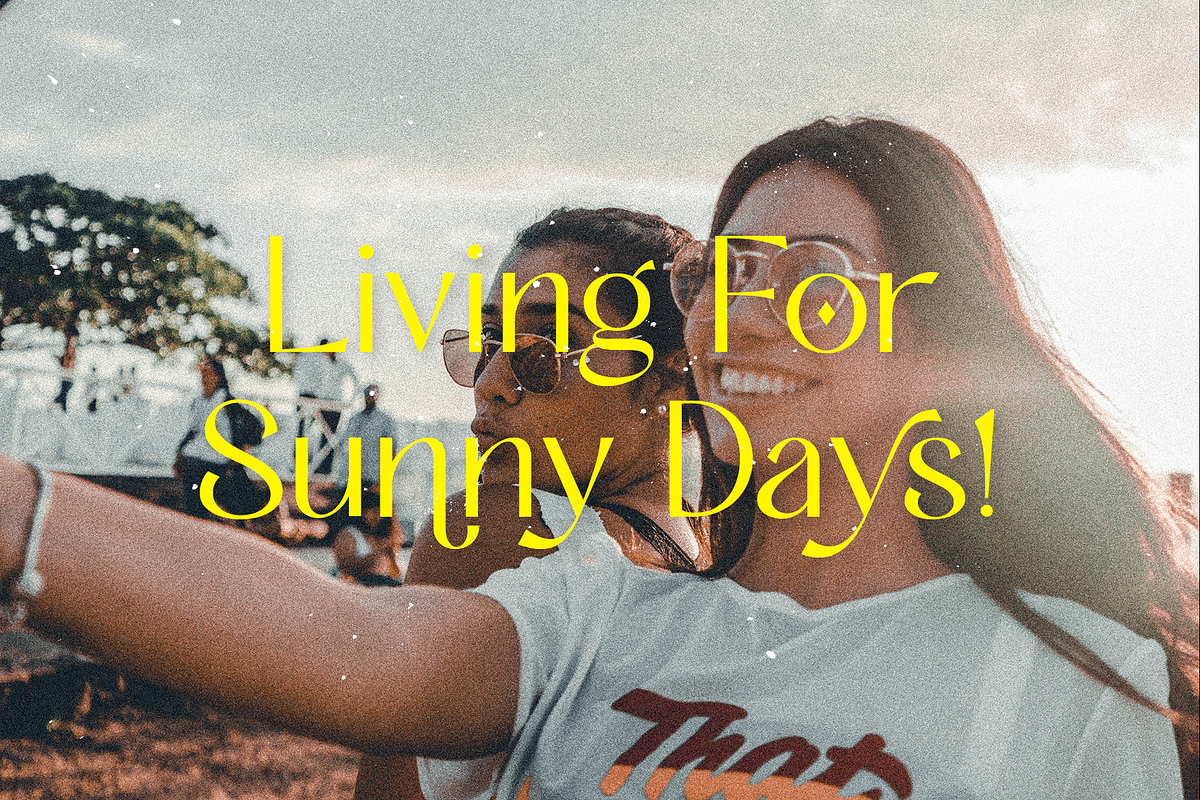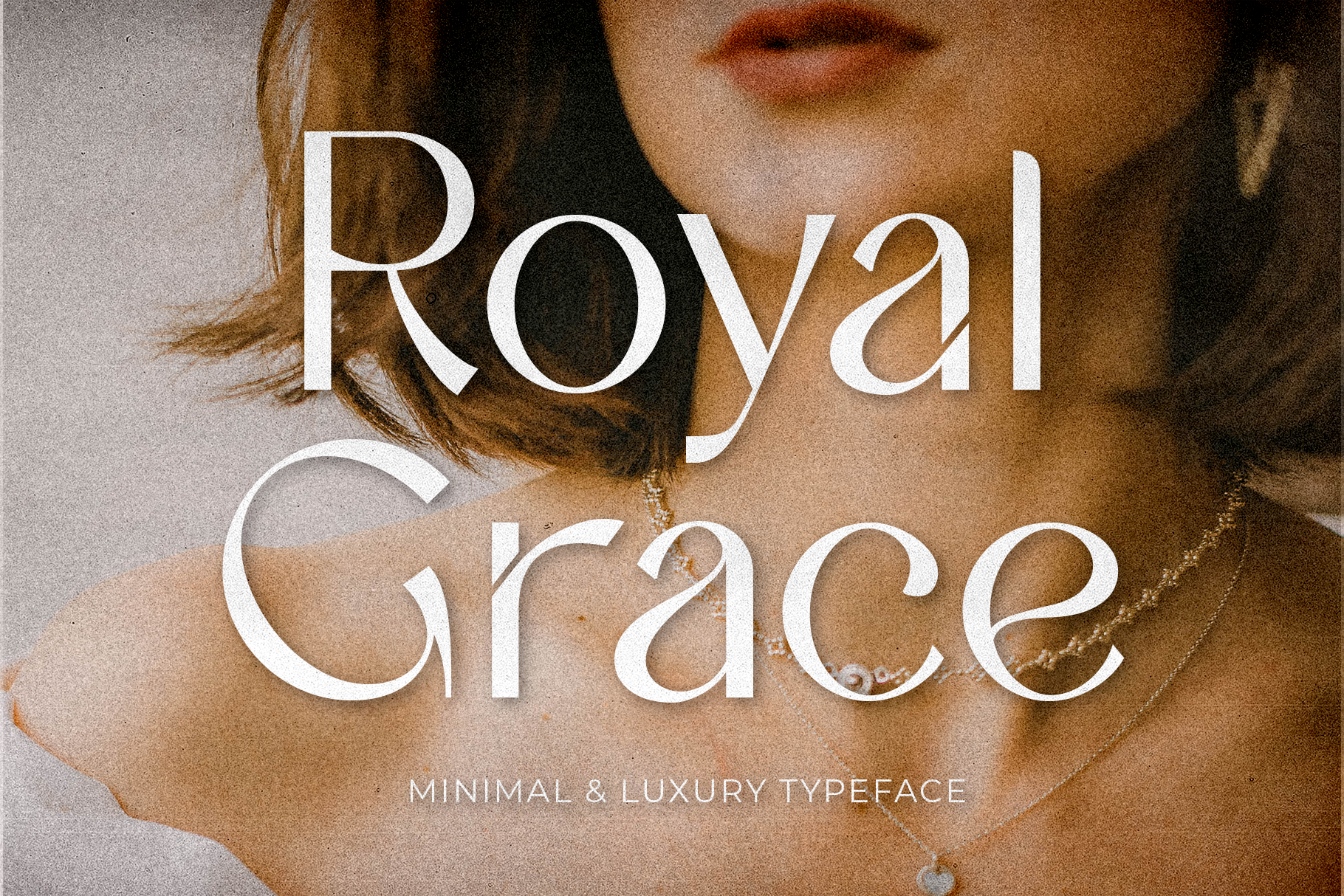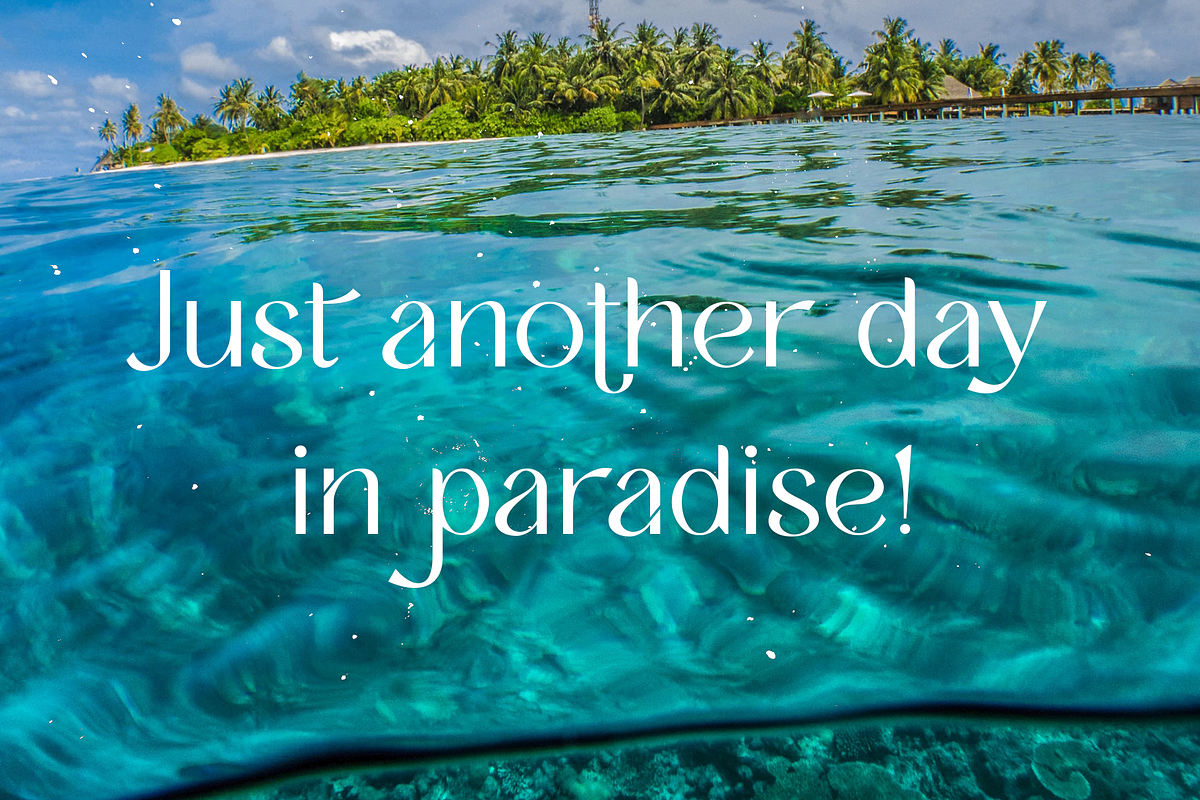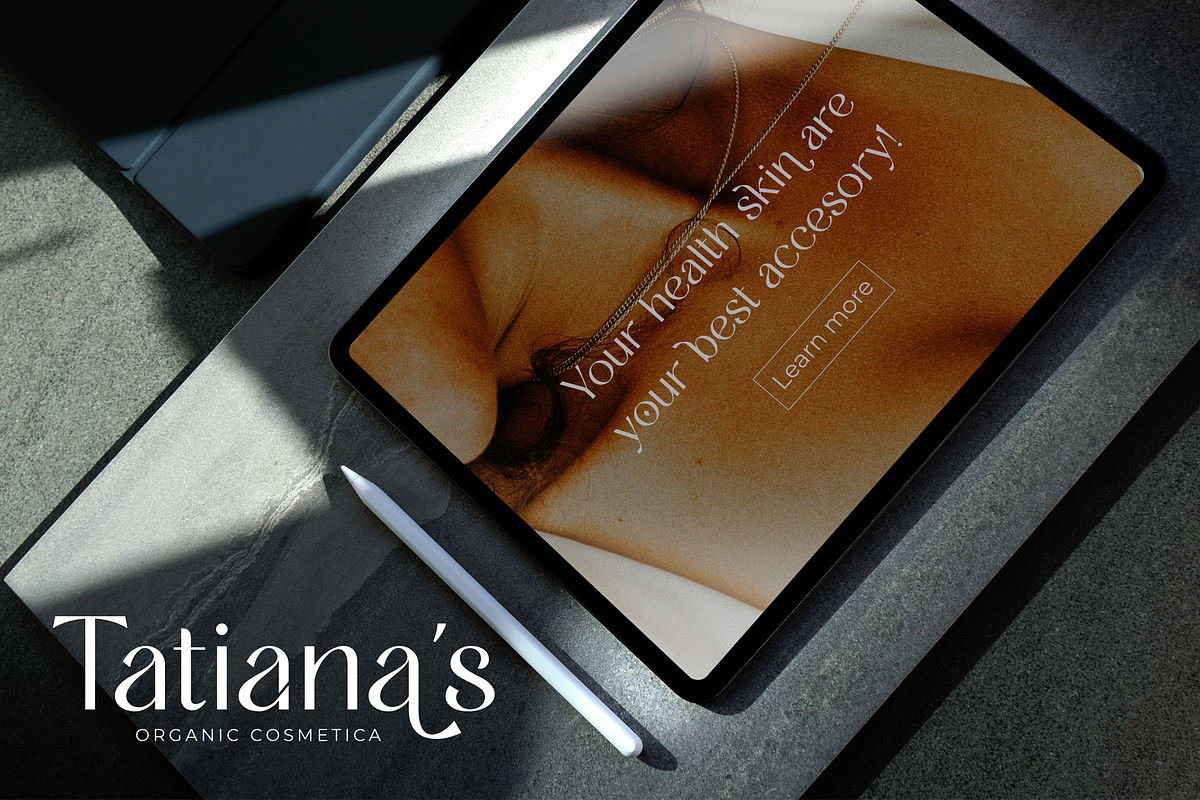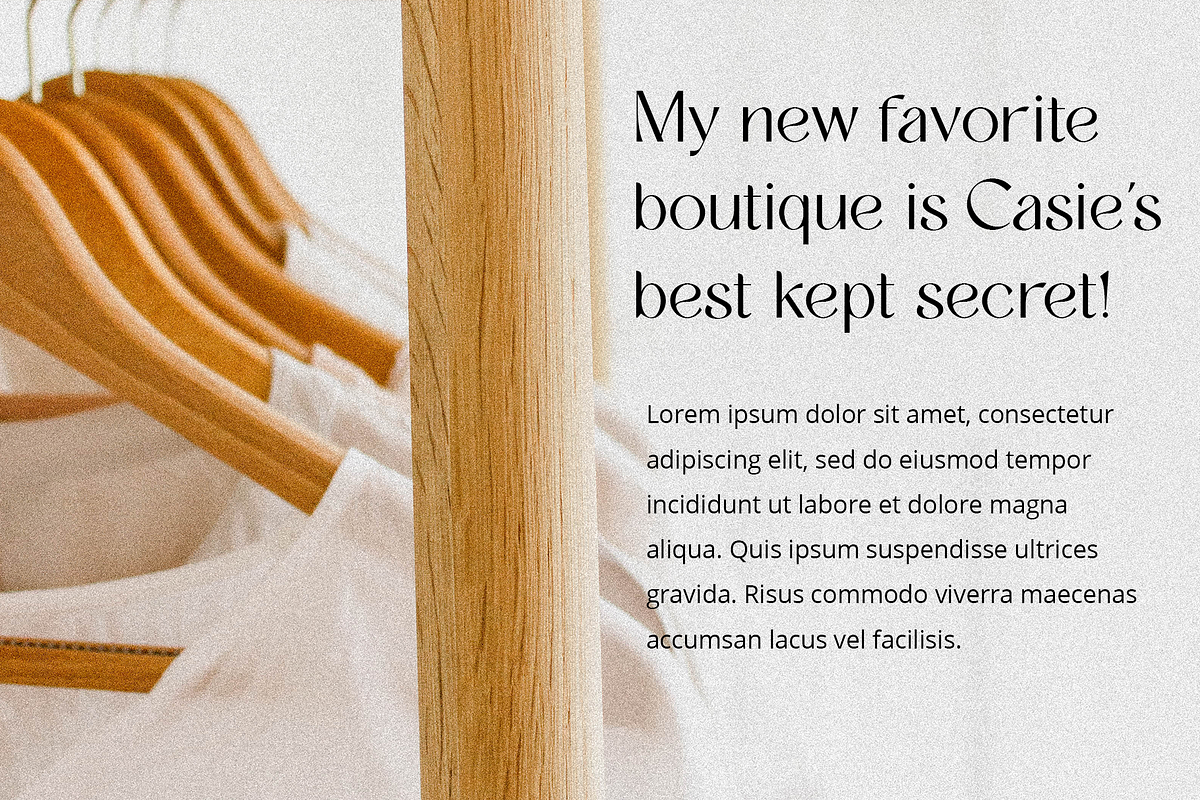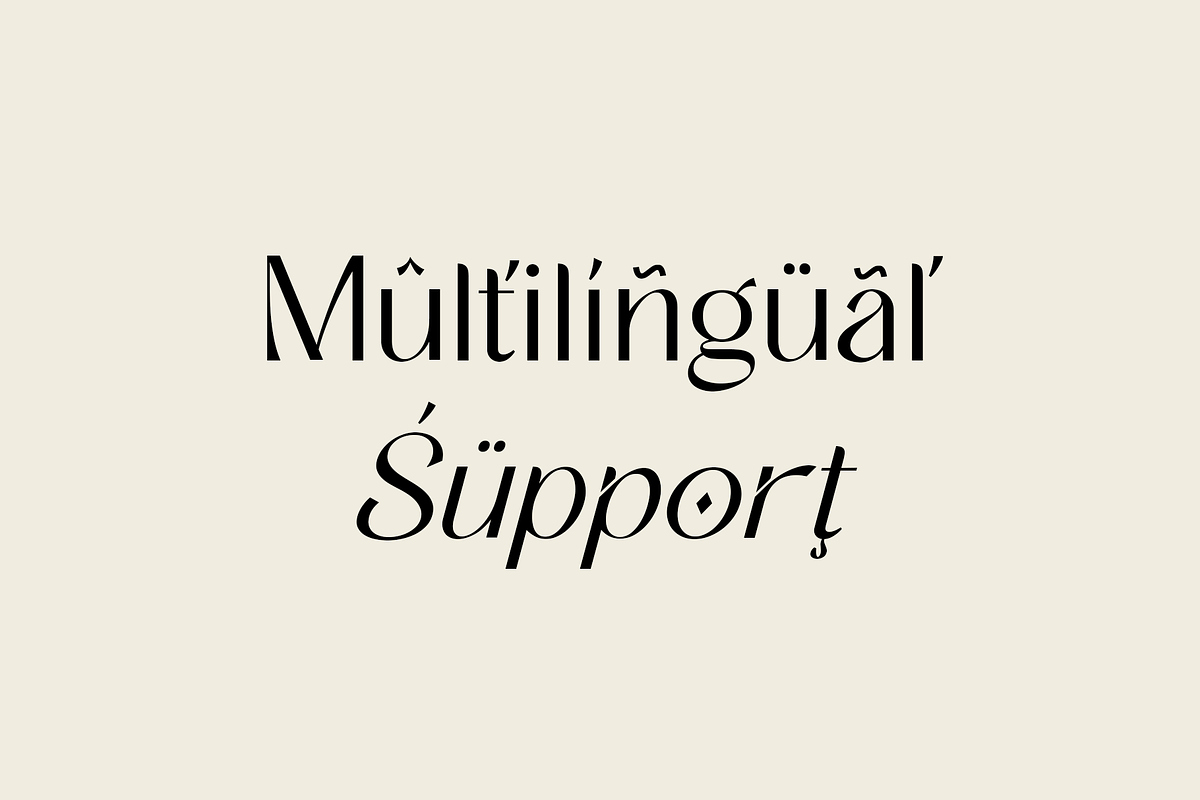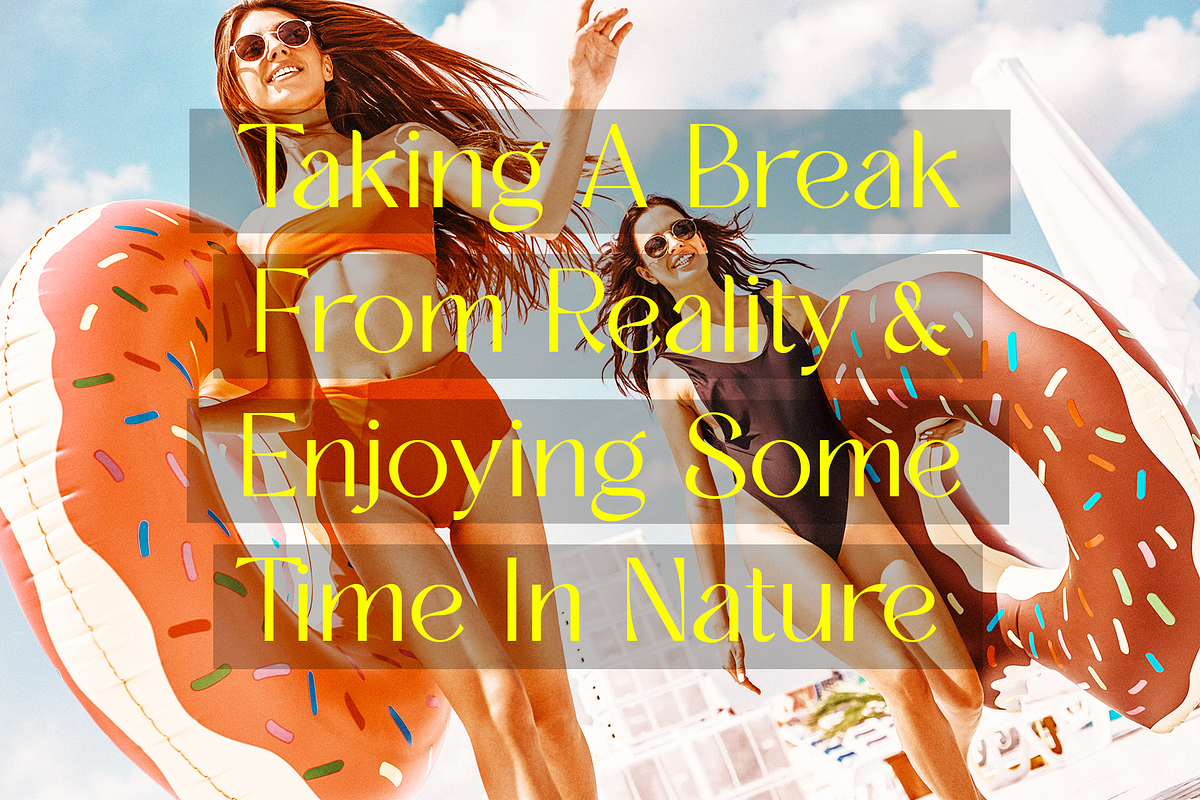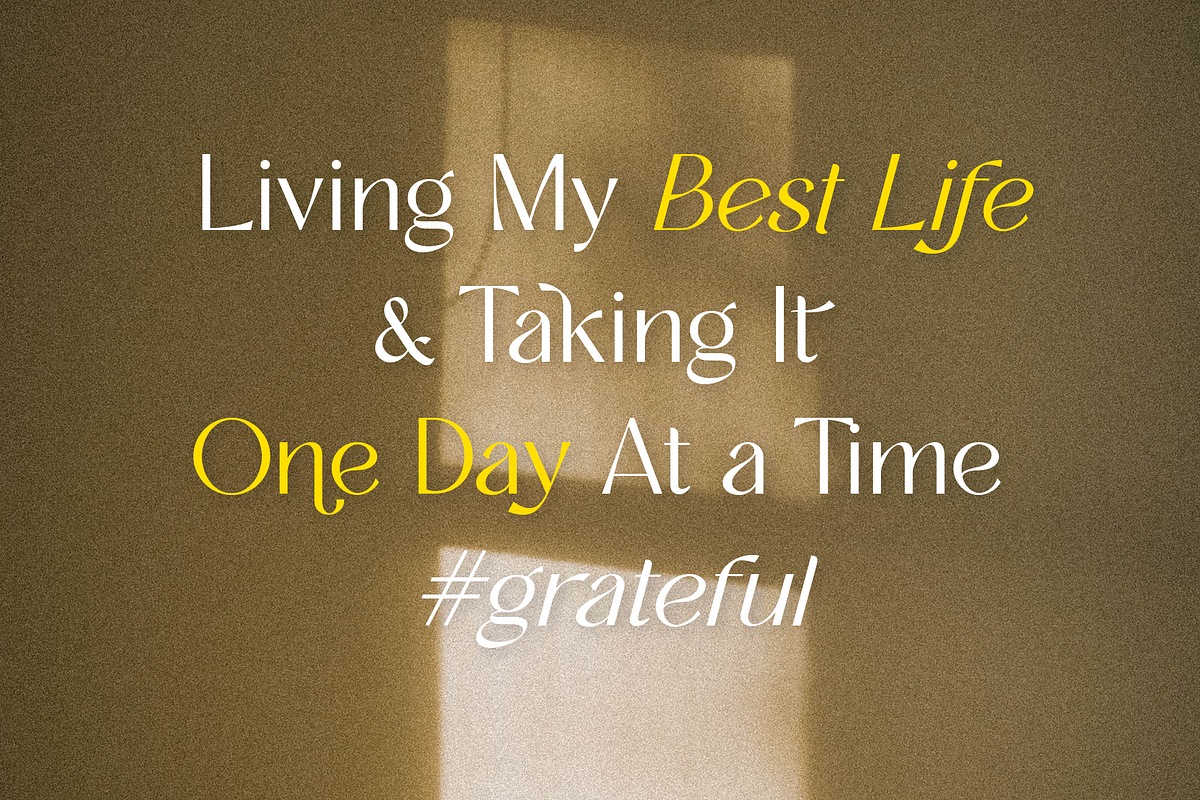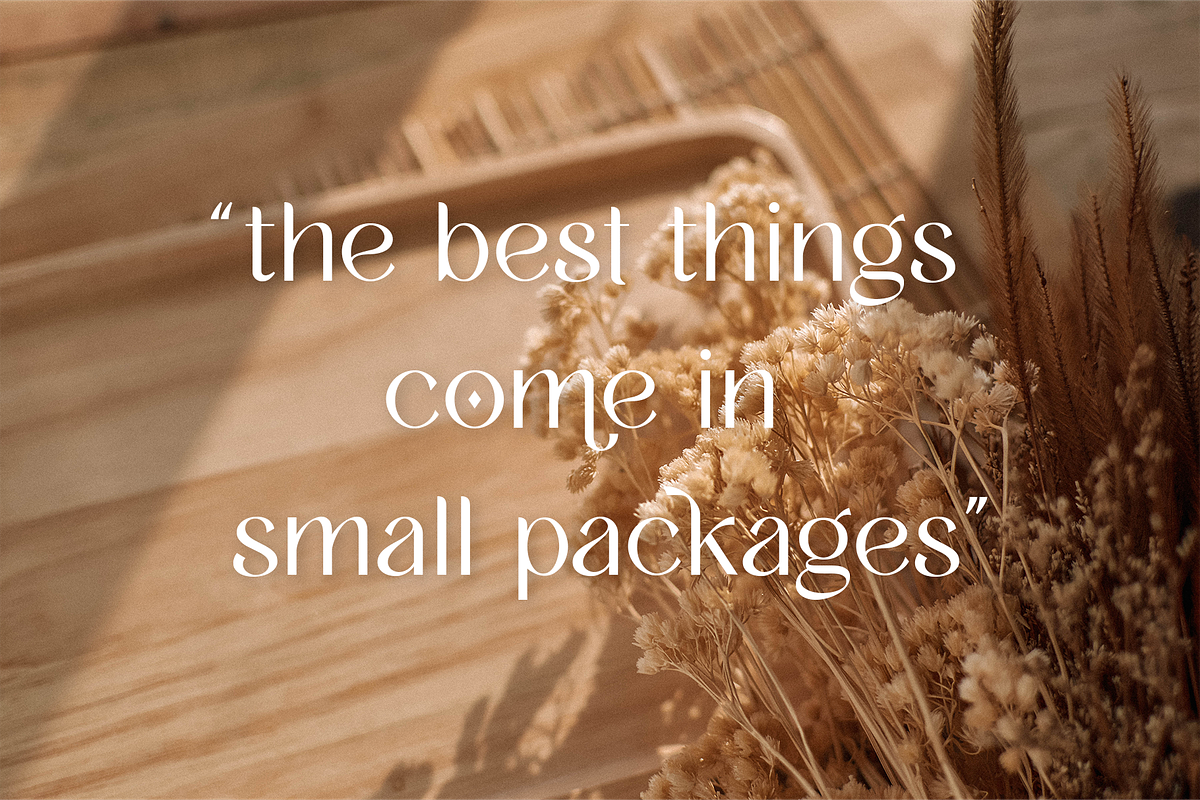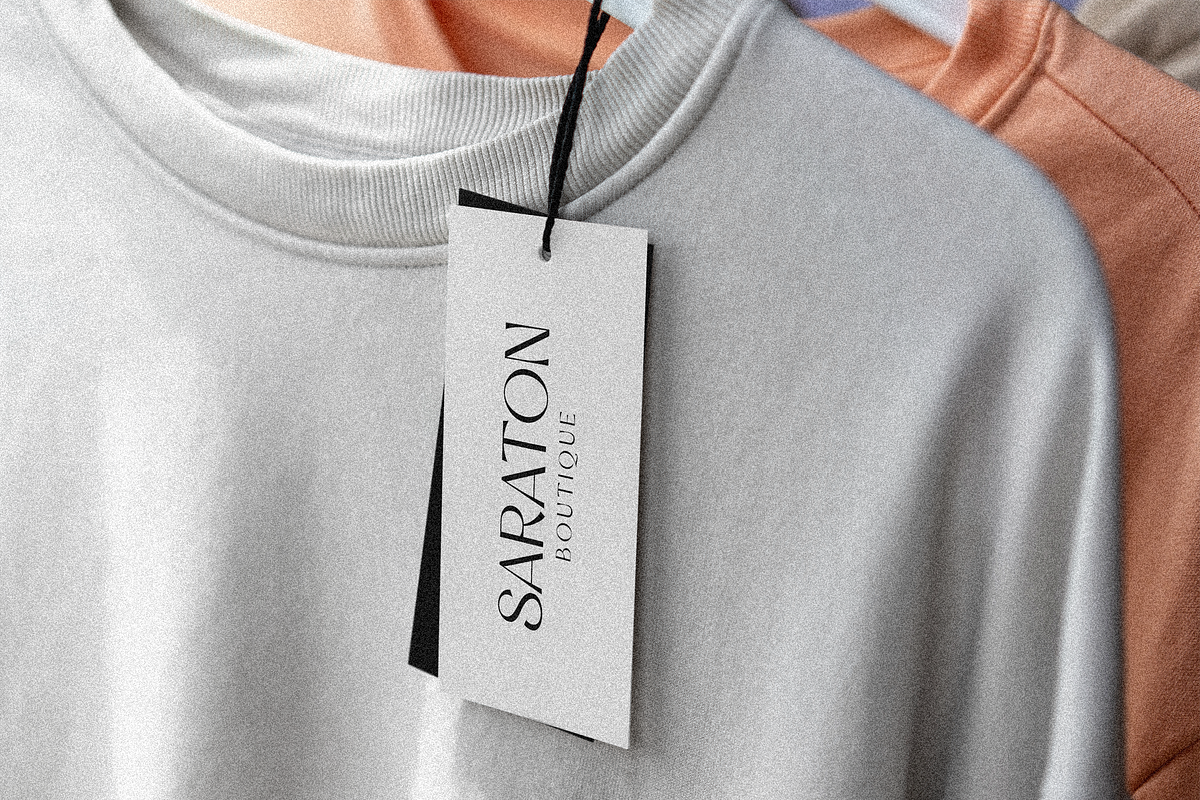
Royal Grace | Minimal & Luxury Fonts
Introducing Royal Grace Fonts – a brand new minimal sans serif with all the luxury vibes!
This fonts can be a great way to add a touch of class and sophistication to your logo, display text, web site or blog stand out from the rest.
Royal Grace Fonts is a beautiful upper and lowercase typeface that looks minimal & luxury.
I've been enjoying mixing the regular and italic typefaces together, whether they're in one word or more.